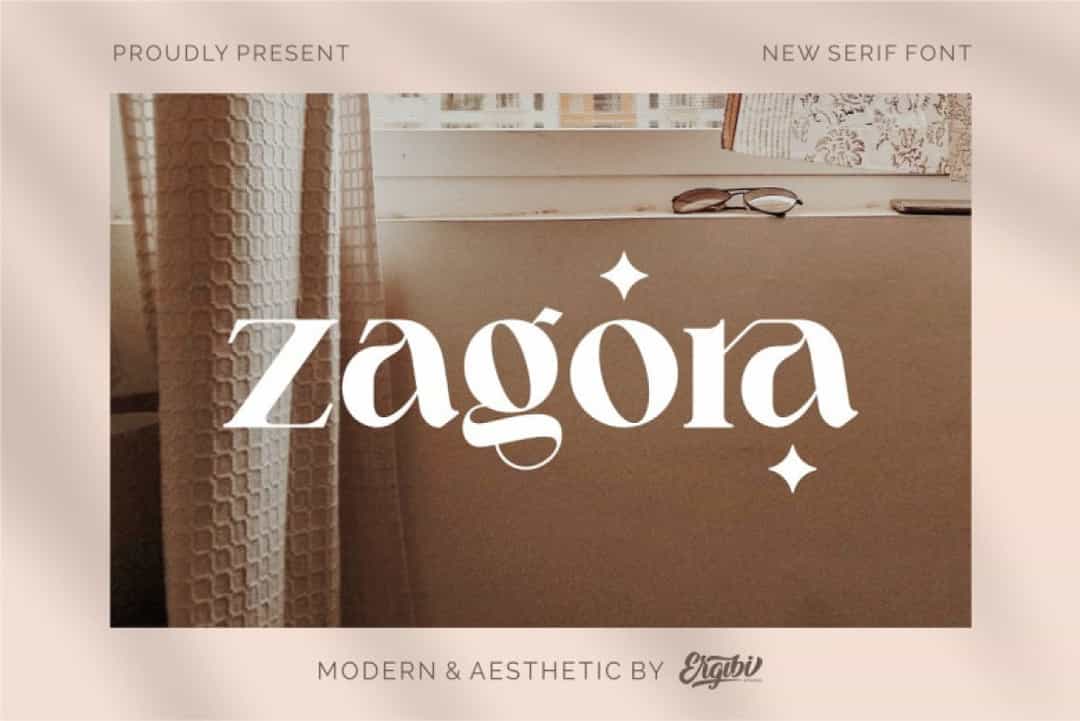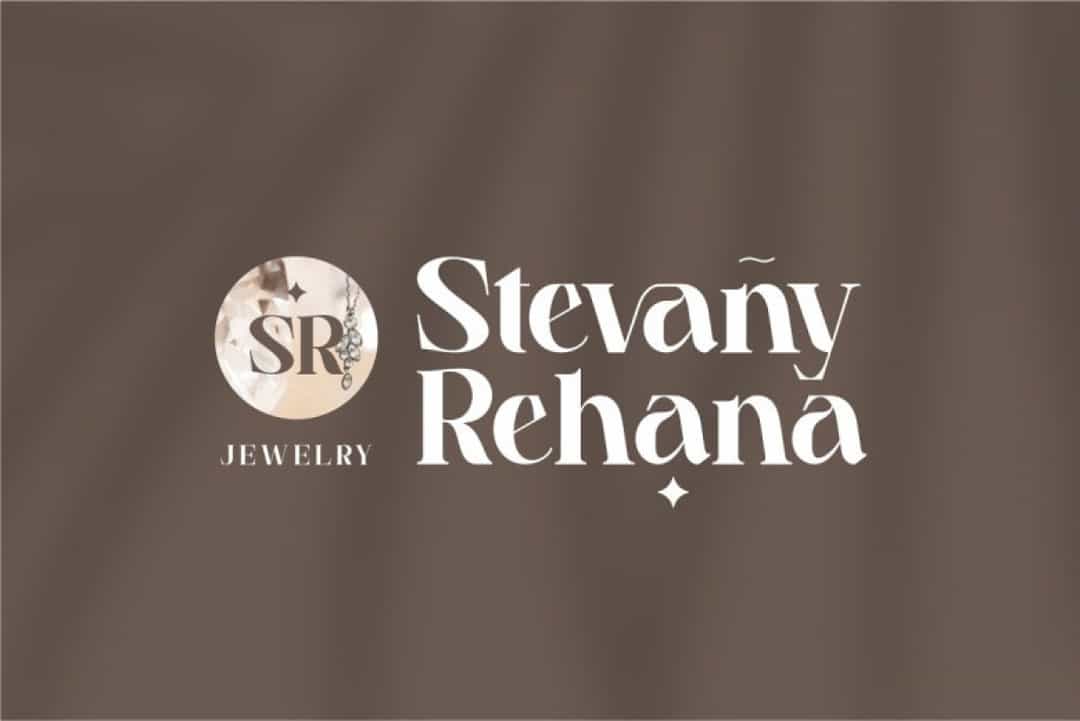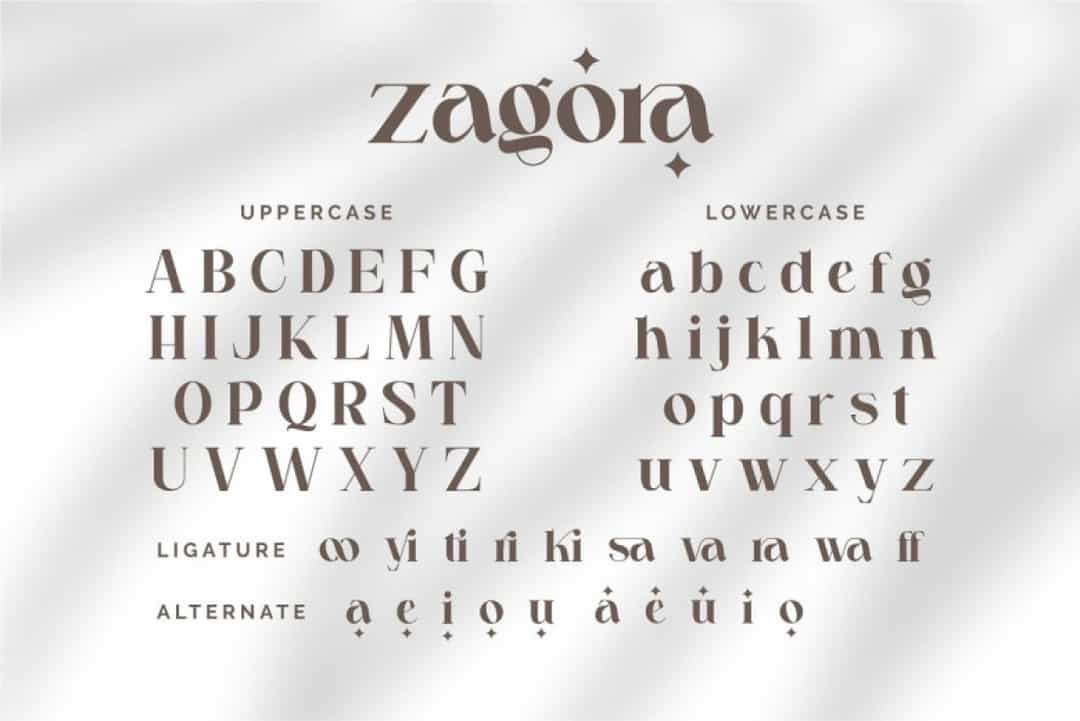
Discover Zagora Font, part of the Serif collection—a versatile and unique font perfect for adding a personal touch to your projects. Download it for free and enjoy crafting designs with style, from invitations to social media posts. This font is available exclusively for personal use, giving you the freedom to create without limits. Unlock your creativity with Zagora Font today!
Zagora can be described as a modern and stylish serif font. With its simple design, it creates a modern appearance perfect for logos, branding wedding designs and advertisements, social media posts packaging for products labels photographs watermarks invitations stationery or any task that requires simple and contemporary aesthetic.